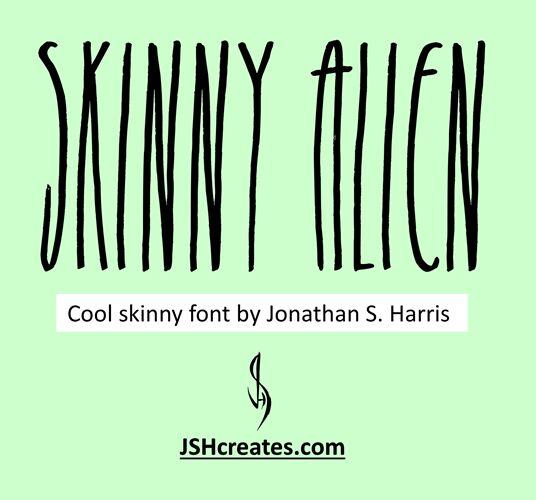
Skinny Alien by Jonathan S Harris is a thin, narrow handwritten font, perfect for creative projects. Use it to give your designs an extra personal touch - from logos and posters to book covers and printed cards.